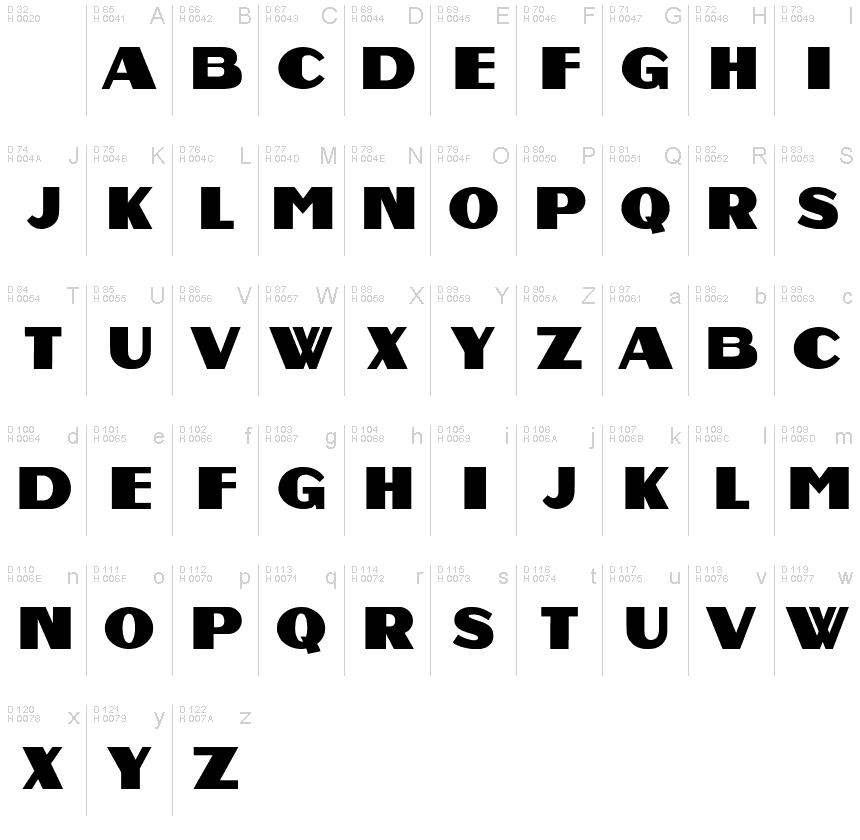
Pani Pani Regular
Pani Pani, the brainchild of font designer Vladimir Nikolic, is an extraordinary sans serif typeface. With its extra-bold weight and expanded width, Pani Pani exudes confidence and power. This versatile font is a perfect fit for a wide range of projects.
Its boldness makes it ideal for eye-catching headlines and attention-grabbing logos, while its expanded width ensures readability even at smaller sizes. From modern websites to sleek print designs, Pani Pani adds a touch of boldness and sophistication to any project it graces.